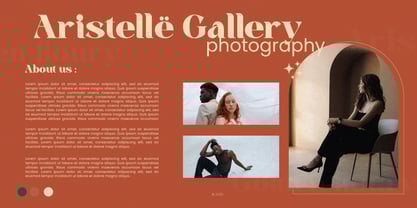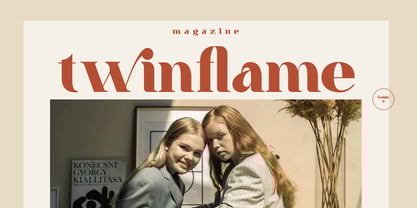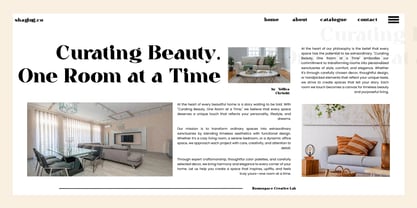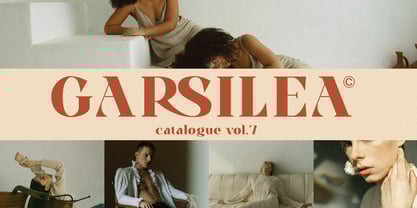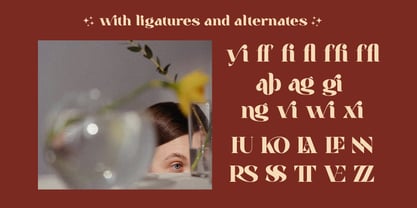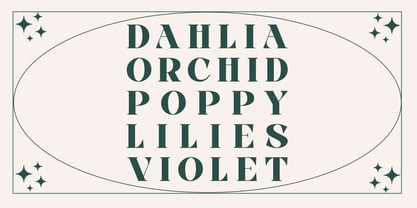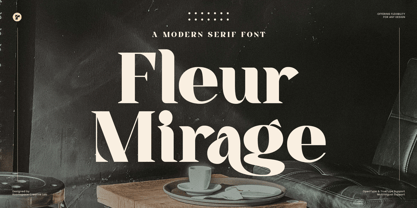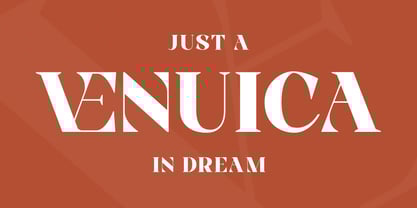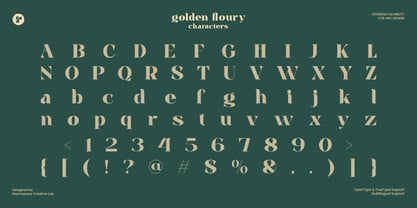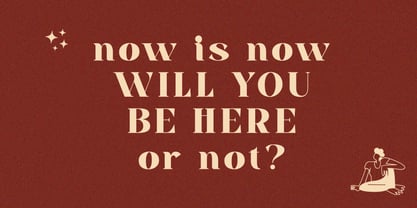
Fleur Mirage
by Jafar07
The Fleur Mirage Font Family was designed by Bakhrudin Ja'far and published by Jafar07. Fleur Mirage contains 2 styles and family package options.
Fleur Mirage is a captivating serif font that exquisitely blends vintage nostalgia with modern sophistication. This versatile typeface is designed to elevate your creative projects, making it ideal for logos, wedding invitations, magazine layouts, and social media graphics. With a retro aesthetic influenced by the iconic styles of the 60s and 70s, Fleur Mirage exudes a stylish yet trendy vibe. Its soft curves paired with bold serif elements create the perfect balance between decorative flair and contemporary design, making it a standout choice for a variety of applications. Engineered for flexibility and creativity, Fleur Mirage includes unique ligatures and alternates, enabling you to craft personalized and artistic typography. Additionally, its multilingual support guarantees that your designs resonate with audiences across the globe, enhancing their reach and impact.